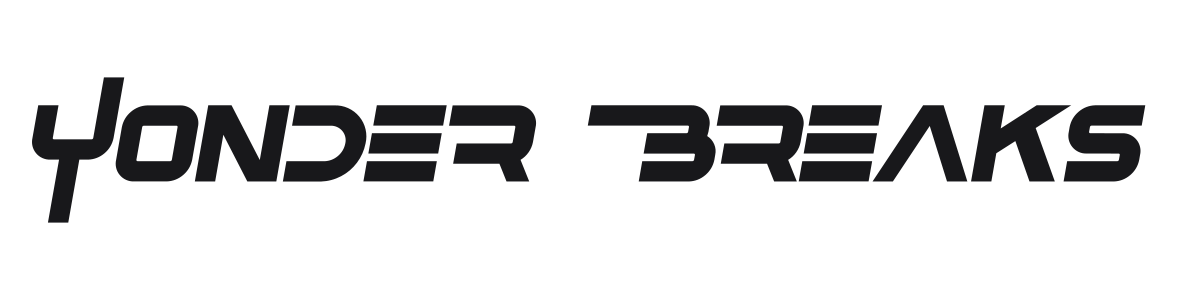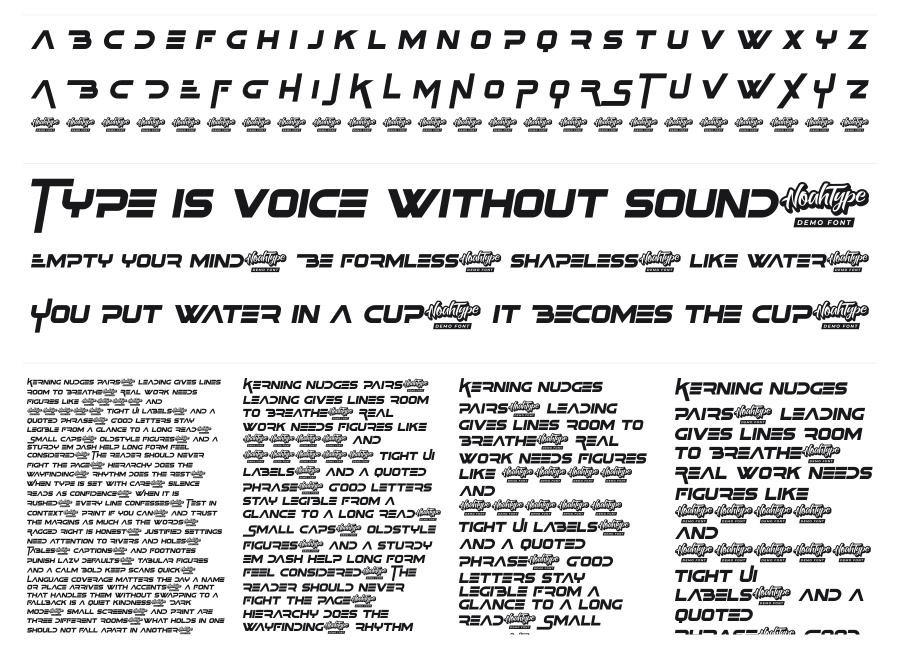
Yonder Breaks
by Noah Type · Website
Yonder Breaks is a heavy italic condensed sans with hard angular cuts slicing through its strokes for a high-energy, futuristic feel. The aggressive forward lean and notched terminals evoke speed, machinery, and action-movie titles. It hits hardest at large display sizes where those sharp details read clearly.